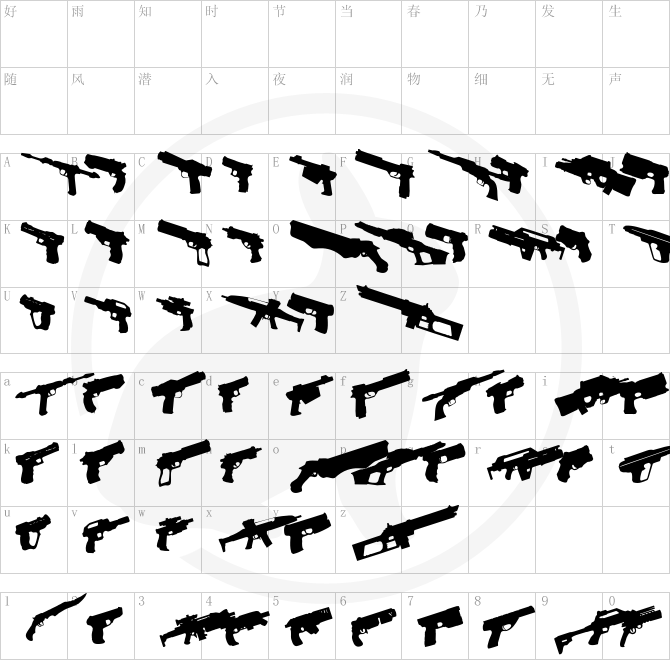
- Font Name:2nd Amendment 2050 Rotated
2nd-Amendment-2050-Rotated.ttf is a very beautiful artistic font, 2nd-Amendment-2050-Rotated.ttf is widely used in the design and printing of various books and pictures,2nd-Amendment-2050-Rotated.ttf has a strong visual impact,2nd-Amendment-2050-Rotated.ttf is a commonly used font in newspapers, magazines and books, and is used in posters, e-commerce Poster design, store design, logo design, font design and other fields.2nd-Amendment-2050-Rotated.